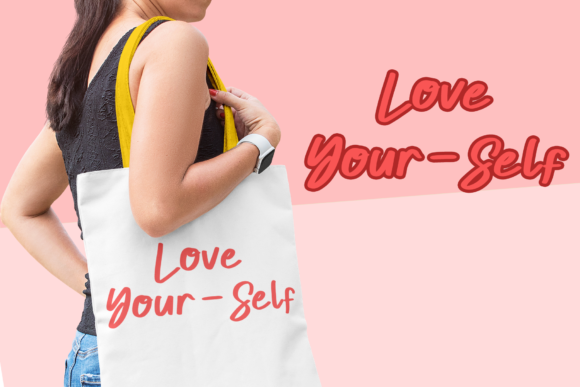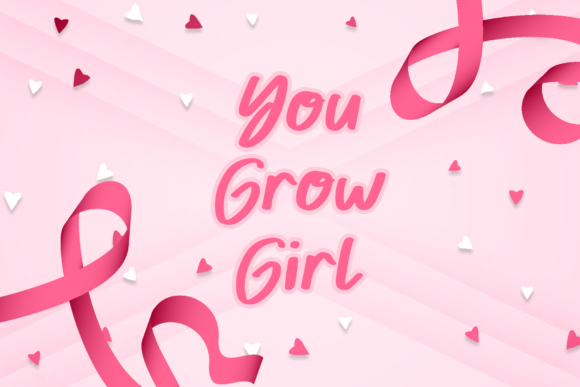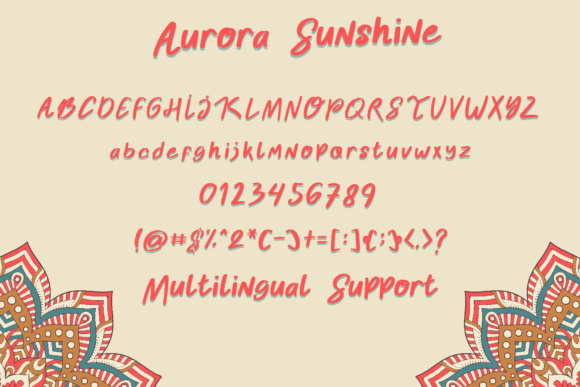
Aurora Sunshine Font: Elevate Your Designs with a Playful and Modern Twist
Are you tired of using the same old fonts in your designs? Look no further than the Aurora Sunshine Font, a playful, relaxed, and modern font that’s sure to make your project stand out from the crowd. With its unique and eye-catching style, this font is perfect for designers and crafters looking to add a touch of personality to their work.
What Makes Aurora Sunshine Font So Special?
Aurora Sunshine Font is a one-of-a-kind font that’s designed to bring a sense of fun and playfulness to your designs. Its modern and relaxed style makes it perfect for a wide range of projects, from creative crafts to digital designs. Whether you’re working on a logo, brochure, or social media graphics, this font is sure to add a touch of personality and whimsy to your work.
Key Features of Aurora Sunshine Font
- Playful and Relaxed Style: Aurora Sunshine Font has a unique and playful style that’s perfect for designers and crafters who want to add a touch of personality to their work.
- Modern Design: This font has a modern design that’s perfect for a wide range of projects, from digital designs to creative crafts.
- Unique and Eye-Catching: With its bold and eye-catching style, Aurora Sunshine Font is sure to make your project stand out from the crowd.
- Easy to Read: Despite its playful style, Aurora Sunshine Font is easy to read and perfect for use in a wide range of projects.
Uses for Aurora Sunshine Font
Aurora Sunshine Font is a versatile font that can be used in a wide range of projects, including:
- Digital Designs: Use Aurora Sunshine Font in your digital designs, such as social media graphics, blog posts, and website headers.
- Creative Crafts: Add a touch of personality to your creative crafts, such as handmade cards, scrapbooking, and DIY projects.
- Logos and Branding: Use Aurora Sunshine Font to create a unique and eye-catching logo or brand identity.
- Print Materials: Use Aurora Sunshine Font in your print materials, such as brochures, flyers, and posters.
Why Choose Aurora Sunshine Font?
There are many fonts to choose from, but Aurora Sunshine Font stands out from the crowd. Here are just a few reasons why:
- Unique Style: Aurora Sunshine Font has a unique and eye-catching style that’s sure to make your project stand out.
- High-Quality Design: This font is designed to high-quality standards, ensuring that it looks great in any project.
If you’re looking for a font that’s playful, relaxed, and modern, look no further than Aurora Sunshine Font. With its unique and eye-catching style, this font is perfect for designers and crafters who want to add a touch of personality to their work. Whether you’re working on a digital design, creative craft, or print material, Aurora Sunshine Font is sure to make your project stand out from the crowd.
Tips and Tricks for Using Aurora Sunshine Font
- Experiment with Different Sizes: Try out different sizes of Aurora Sunshine Font to see how it looks in different contexts.
- Pair with Other Fonts: Experiment with pairing Aurora Sunshine Font with other fonts to create a unique and eye-catching combination.
- Use in Combination with Images: Use Aurora Sunshine Font in combination with images to add a touch of personality to your designs.